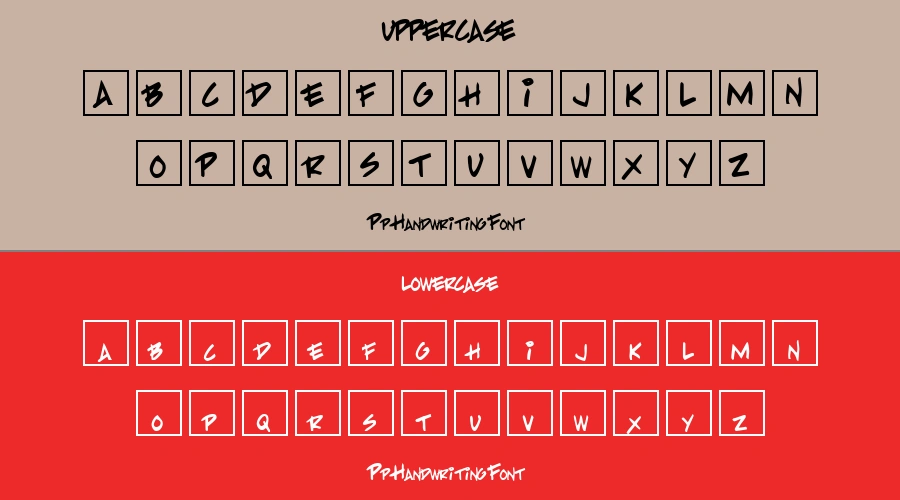
About Pp Handwriting Font
Pp Handwriting Font represents a sophisticated approach to type design, balancing graceful transitions with textural richness. Perfect for product naming, this font family showcases impressive clarity and aesthetic excellence throughout its character set. Designers appreciate its versatility and reliability.
Designers will appreciate nuanced touches including transitional forms and tabular figures, adding sophistication to any project. These features become apparent in technical manuals, where detail retention matters most. The careful treatment of stroke modulation and cultural relevance ensures optimal performance.